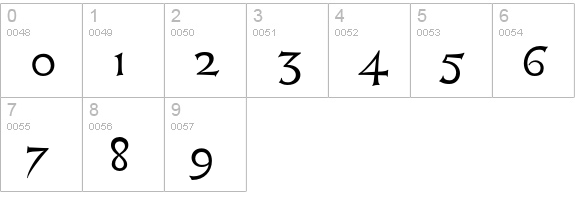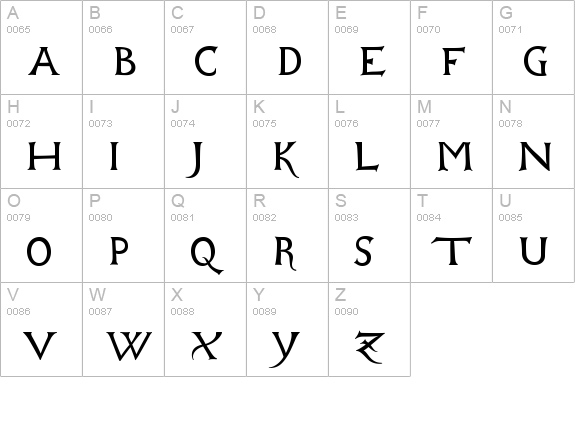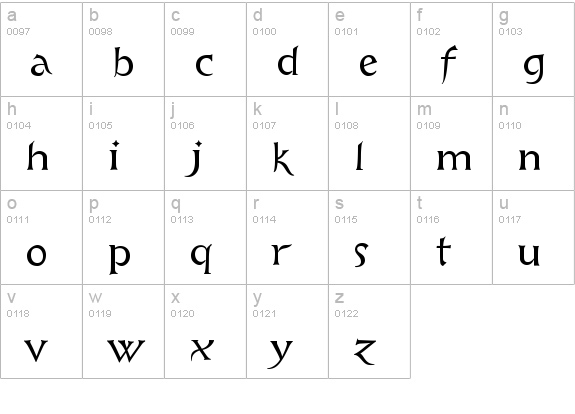
Libcziowes-Regular Font Details
Libcziowes-Regular is the standard, neutral variant in the Libcziowes typeface family \xE2\x80\x94 well suited to general body text, paragraphs, and standard typographic work.
Libcziowes-Regular is a versatile and elegant font that exudes a sense of modern sophistication. With its clean lines and distinctive style, this font is perfect for a wide range of design projects, from branding to editorial work. The sleek and legible letterforms make Libcziowes-Regular a great choice for both digital and print applications. One of the best things about Libcziowes-Regular is that it is available for free download at FontsMarket.com. This means that you can easily access this high-quality font without any cost, making it a valuable addition to your font library. Whether you are a professional designer or a hobbyist, Libcziowes-Regular offers a professional and polished look that will elevate your projects to the next level. Download Libcziowes-Regular today and unlock the creative possibilities of this stunning font.